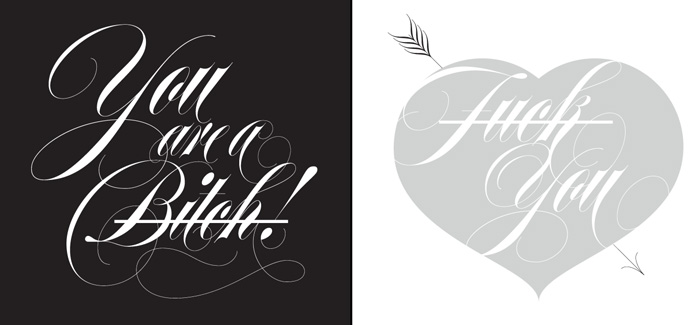
LOVEly script fonts
Fontmatters’ selection of the 10 lovely script fonts and 3 special entries for your Valentine’s Greetings
14th February is getting closer and Fontmatter’s team decided to make a short but helpful selection of 10 lovely script fonts for your Valentine’s Greetings + 3 special entries that somehow give a different viewpoint to this holiday. All of them are elegant emotional scripts full of love, charm and beauty – a perfect choice for every Valentine’s greeting card or love message. We don’t call our selection ‘top 10’ and we don’t compare the fonts inside trying to find which is No.1 – they are all excellent and each of them has its own character, presence and dedication to Valentine’s day and all lovers. Here they are – Enjoy!
Poem Script Pro font by Alejandro Paul
Poem Script Pro font is designed in the spirit of the 19th century American pen script tradition. It’s a full reflection of the incredible control and skills of the old craftsmen to transform poetry, emotions, feelings and movements into incredible ornamental letterforms. Read more.
Dulcinea font by Ramiro Espinoza
Dulcinea font is named after “Dulcinea del Toboso”, the fictional beauty from Miguel de Cervantes’s ‘Don Quixote’, a work that reveals many of the period’s conflicts, such as the contrast between utopian ideals and reality, uncertainty and madness. Read more.
Wishes Script font by Sabrina Mariela Lopez
Wishes Script font is OpenType programmed typeface offering a wide spectrum of graphic design tools: frames, ribbons, hearts, flowers, ornaments, swashes, endings, ligatures, and all the alternates you need to create eye-catching designs. Read more.
Medusa font by Ramiro Espinoza
Medusa font is inspired by the 19th Century Catalonian pointed pen calligraphy and is a kind of dedication to one of the most renowned masters of Spanish calligraphy, Ramón Stirling. Read more.
Platinus Script Pro font by Angel Koziupa and Alejandro Paul
Platinus Script Pro font by Angel Koziupa and Alejandro Paul (Sudtipos foundry) is another good example of what has become a Sudtipos tradition: Tailoring conventional calligraphic pre-digital techniques to produce contemporary digital scripts. Read more.
Erotica font by Maximiliano Sproviero
Erotica font is probably one of the best calligraphic font families designed ever. Unlike many other similar fonts, Erotica is so flexible, sophisticated and well-designed that you could customize almost everything in your word or text. Read more.
Parfumerie Script font by Sabrina Mariela López
Parfumerie Script font family is probably the best and most sophisticated one designed by Argentina based designer Sabrina López. Parfumerie Script is very useful when you want impressive look for your love greeting, celebration or even emotional message. Read more.
Bellissima Script Pro font by Alejandro Paul
Bellissima Script Pro font has an effusive energy that appeals much beyond its sourcing. It’s intended for these modern times of appreciation for old crafty things like stationery and letterpress, where its origins help it shine brightly. Read more.
Quarzo font by Manuel Eduardo Corradine and Sergio Ramírez
Quarzo font is a fine elegant and ornamental script. It is inspired by the flexible nib to create a concatenation of refinement with character mixing the contrasted strokes with emphasized but rounded corners. Read more.
Olidia font by Jeremy Dooley
Olidia is a script with tall sweeping ascenders packed with alternates and ligatures. Olidia Pro includes over 40 alternate characters and 20 ligatures. Read more.
… and 3 Special Entries
Charcuterie font by Laura Worthington
Most type designers (even the top one) usually design a single typeface developed in many different weights, featuring alternates, swashes, ornaments, ligatures and many other useful stuff. That is what we are used to see. Unlike all masters of type Laura Worthington has just released her tremendous work in type design – the Charcuterie font. Read more.
Cantoni font by Debi Sementelli
Cantoni font family is a hand lettered typeface with a variety of standard and alternate characters that play together well. And with a total of 1265 glyphs, you can play for as long as you like. Read more.
Valentines Pro by The Fontmaker
Valentines Pro consists of 50+ hand-lettered love expressions and sentiments for various romantic purposes: from St.Valentine’s greeting cards to email/ letter signatures, to engagement, wedding and anniversary accessories and gifts. Read more.